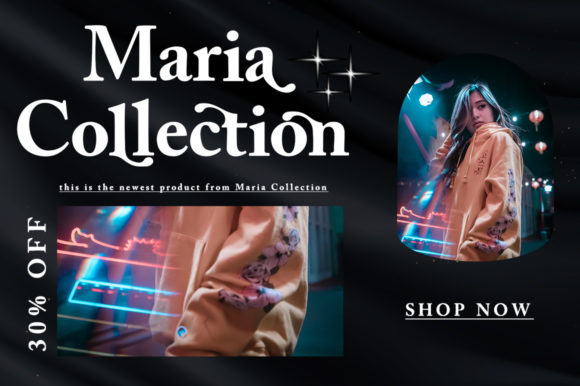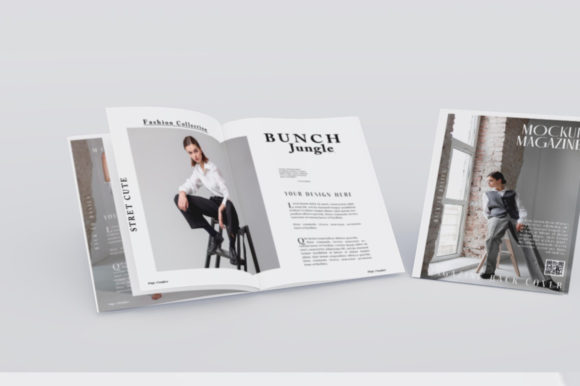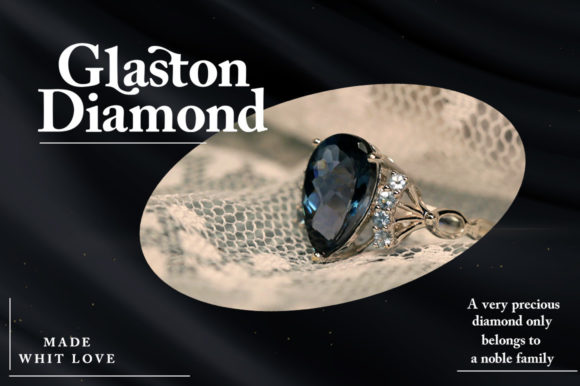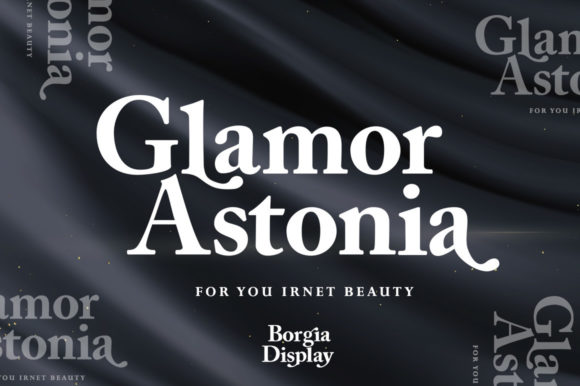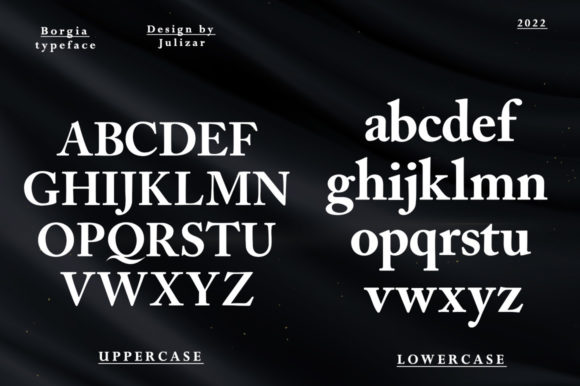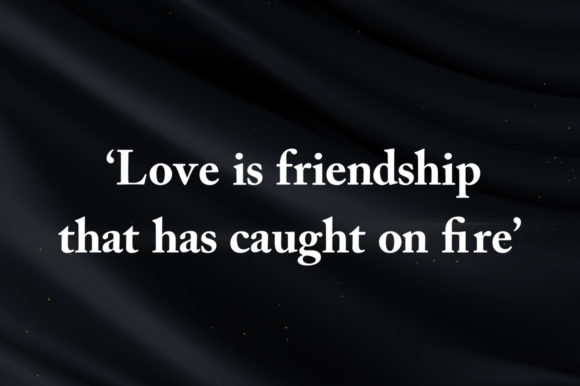
Borgia Font: Elevate Your Designs with Style and Assertiveness
Are you looking for a font that can add a touch of elegance and sophistication to your designs? Look no further than the Borgia Font. This stylish and assertive display font is perfect for designers and crafters who want to make a statement with their creations. In this article, we’ll explore the features and benefits of the Borgia Font, and how it can help you take your designs to the next level.
What is Borgia Font?
Borgia Font is a modern display font that exudes confidence and style. Its unique design makes it perfect for a variety of applications, from branding and advertising to packaging and digital media. With its sleek lines and assertive presence, Borgia Font is sure to grab attention and leave a lasting impression.
Key Features of Borgia Font
- PUA Encoded: Borgia Font is PUA (Private Use Area) encoded, which means that you can access all glyphs and swashes with ease. This makes it easy to customize your designs and add unique touches.
- Stylish and Assertive: Borgia Font is designed to make a statement. Its stylish and assertive design makes it perfect for headlines, titles, and other display text.
- Highly Versatile: Borgia Font can be used in a variety of applications, from digital media to print materials.
Benefits of Using Borgia Font
So why choose Borgia Font for your designs? Here are just a few benefits of using this amazing font:
- Elegance and Sophistication: Borgia Font adds a touch of elegance and sophistication to any design. Its sleek lines and assertive presence make it perfect for high-end brands and luxury products.
- Customization: With its PUA encoding, Borgia Font is easy to customize. You can access all glyphs and swashes with ease, making it simple to create unique and personalized designs.
- Attention-Grabbing: Borgia Font is designed to grab attention. Its stylish and assertive design makes it perfect for headlines, titles, and other display text.
How to Use Borgia Font
Using Borgia Font is easy. Here are a few tips to get you started:
- Pair it with Other Fonts: Borgia Font pairs well with other fonts, making it easy to create unique and interesting combinations.
- Experiment with Swashes: With its PUA encoding, Borgia Font offers a range of swashes and glyphs to experiment with. Don’t be afraid to try new things and see what works best for your design.
- Use it for Headlines and Titles: Borgia Font is perfect for headlines and titles. Its stylish and assertive design makes it easy to grab attention and draw the eye.
Who is Borgia Font for?
Borgia Font is perfect for designers and crafters who want to add a touch of elegance and sophistication to their designs. It’s ideal for:
- Graphic Designers: Borgia Font is perfect for graphic designers who want to create stunning visuals for their clients.
- Crafters: Borgia Font is also great for crafters who want to add a personal touch to their projects.
- Branding and Advertising: Borgia Font is perfect for branding and advertising applications, where its stylish and assertive design can help grab attention and leave a lasting impression.
| Font Name | Borgia Font |
| Author | Anaya Studio |
In conclusion, Borgia Font is a stylish and assertive display font that’s perfect for designers and crafters who want to elevate their designs. With its PUA encoding, elegant design, and attention-grabbing presence, Borgia Font is sure to become a favorite in your font collection. So why wait? Add Borgia Font to your favorite creations today and see the amazing results for yourself!